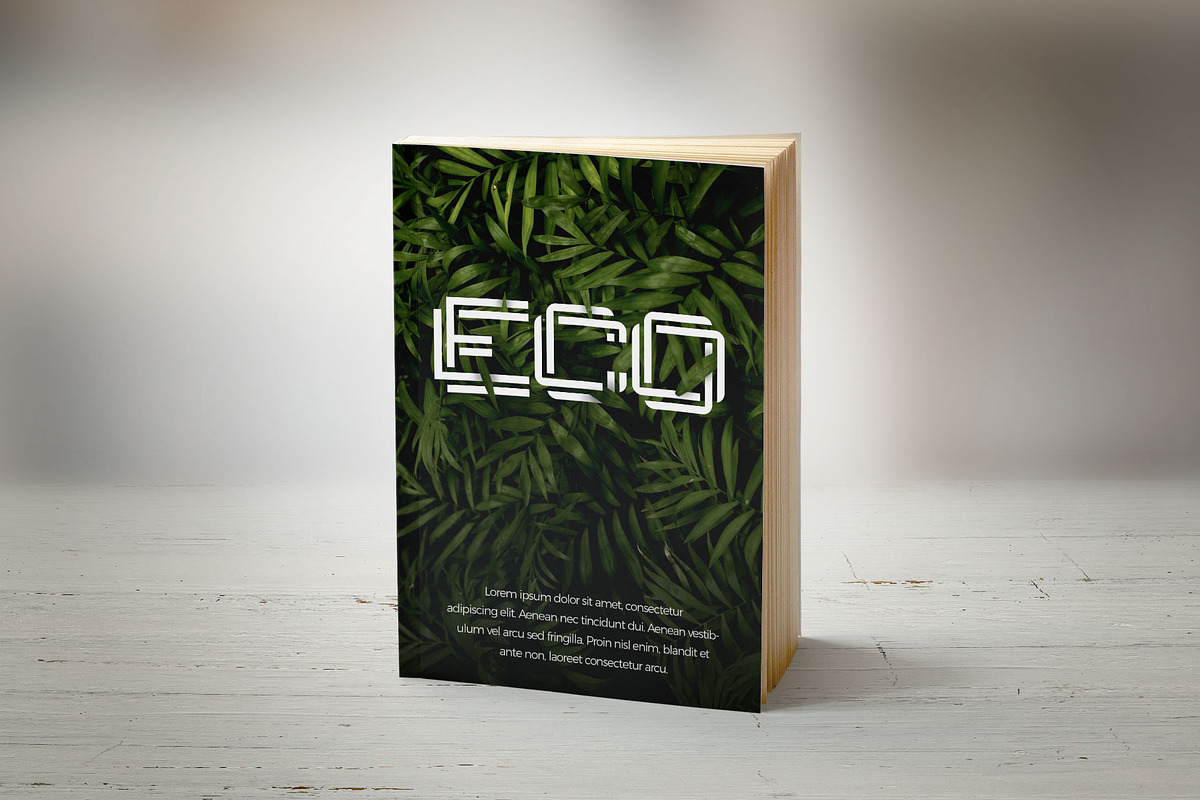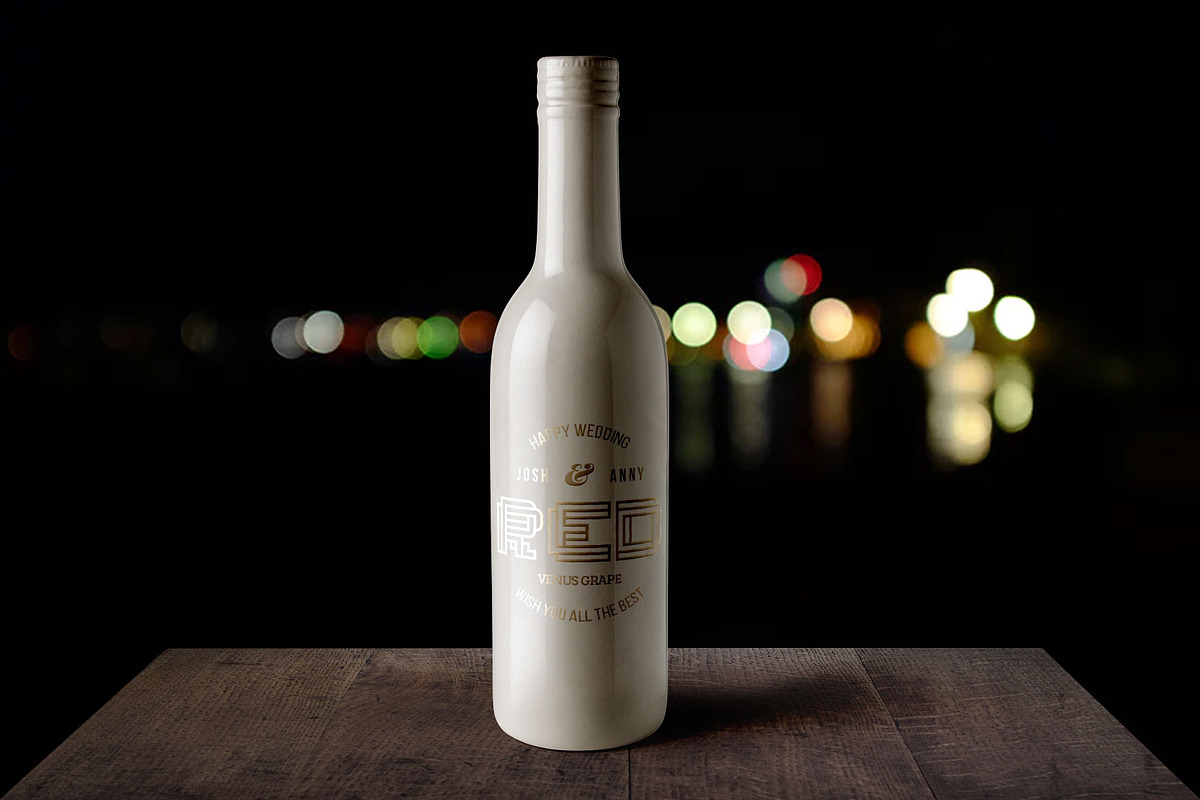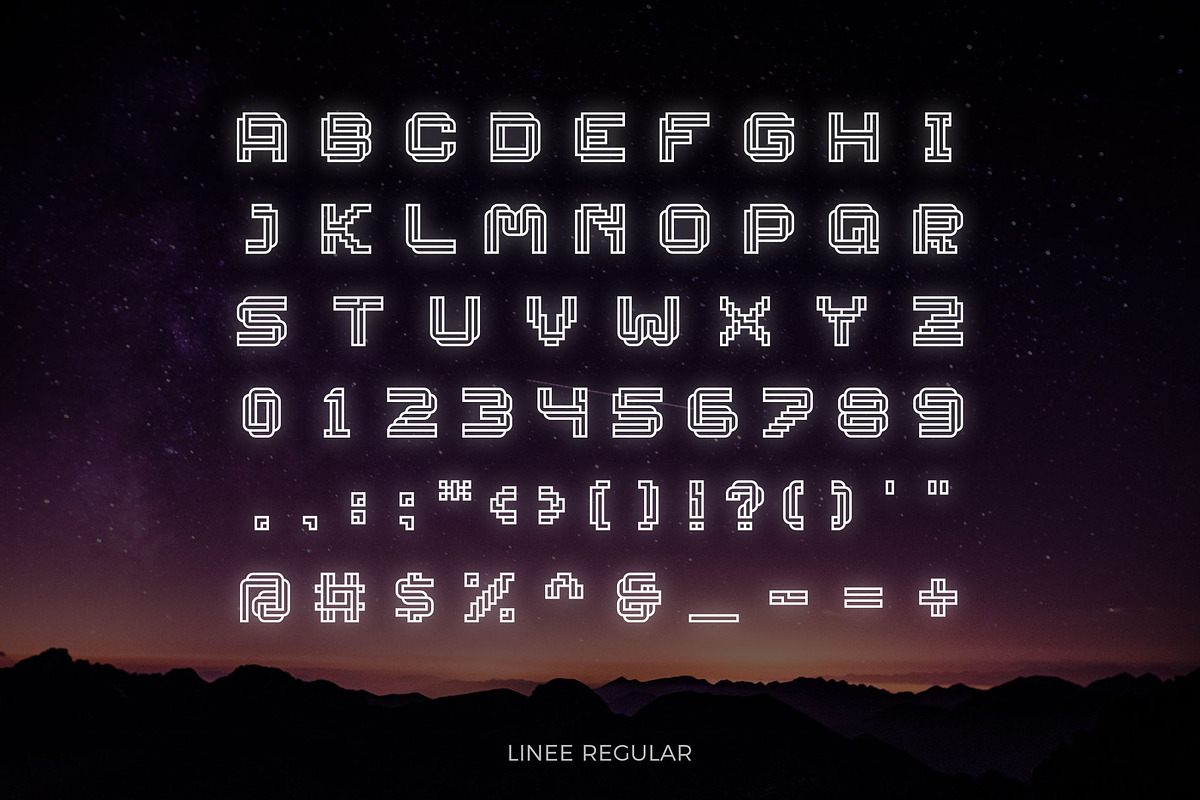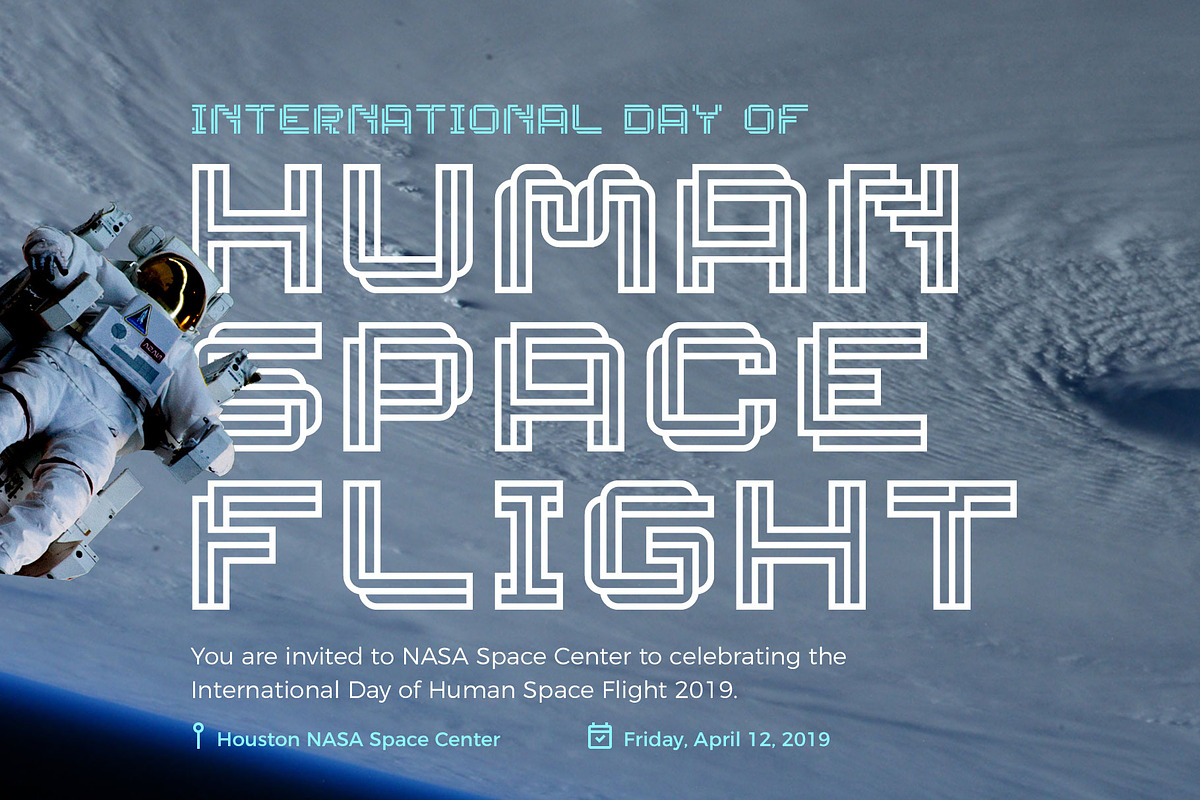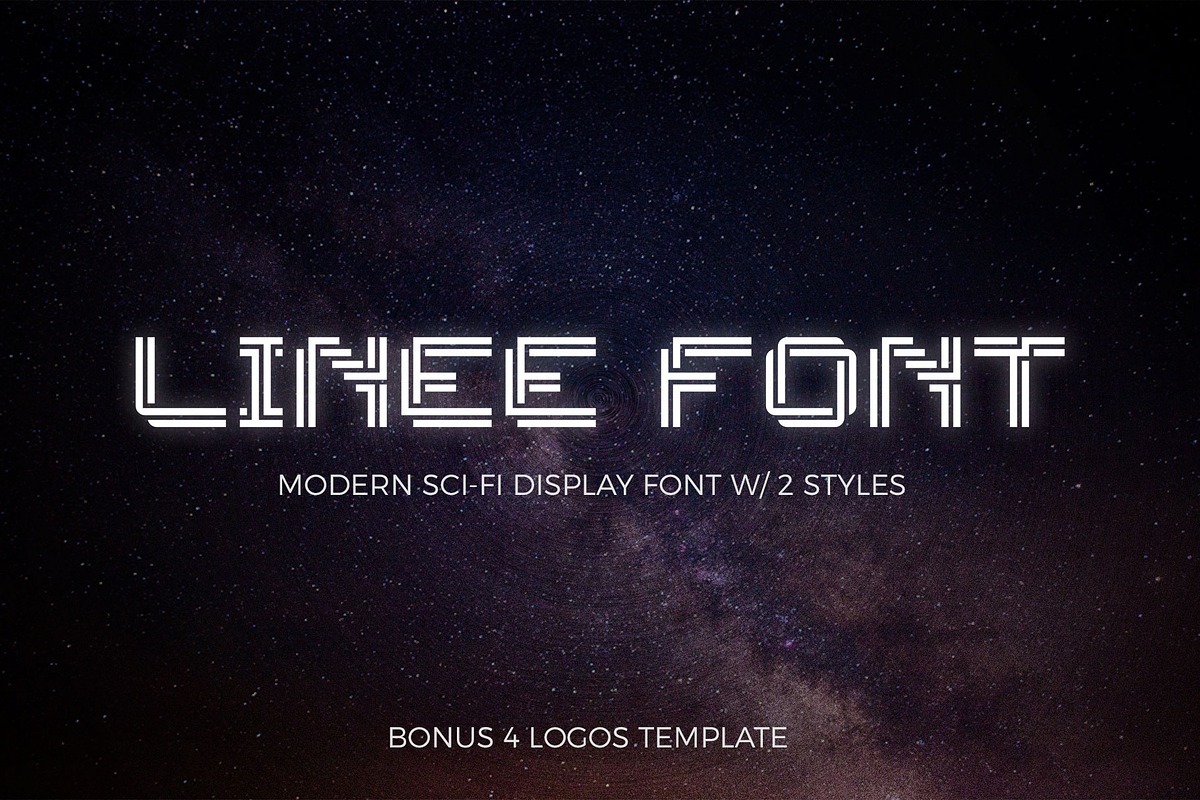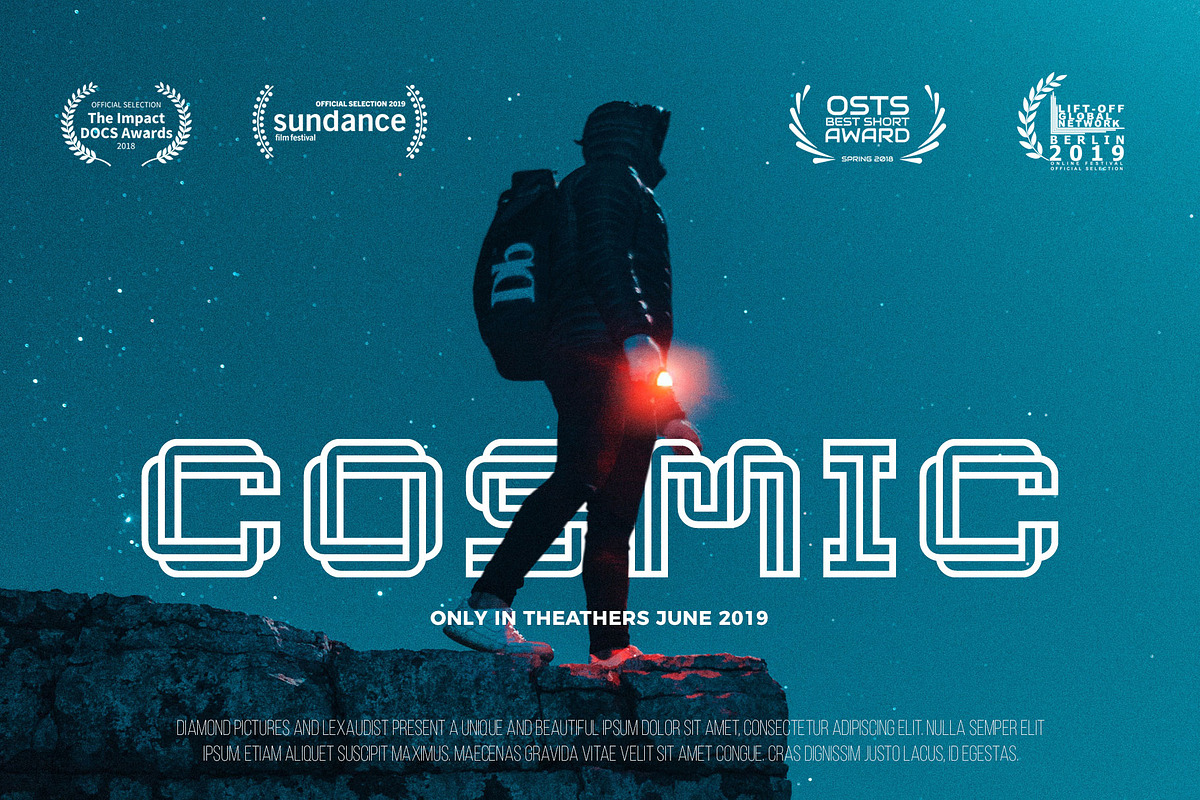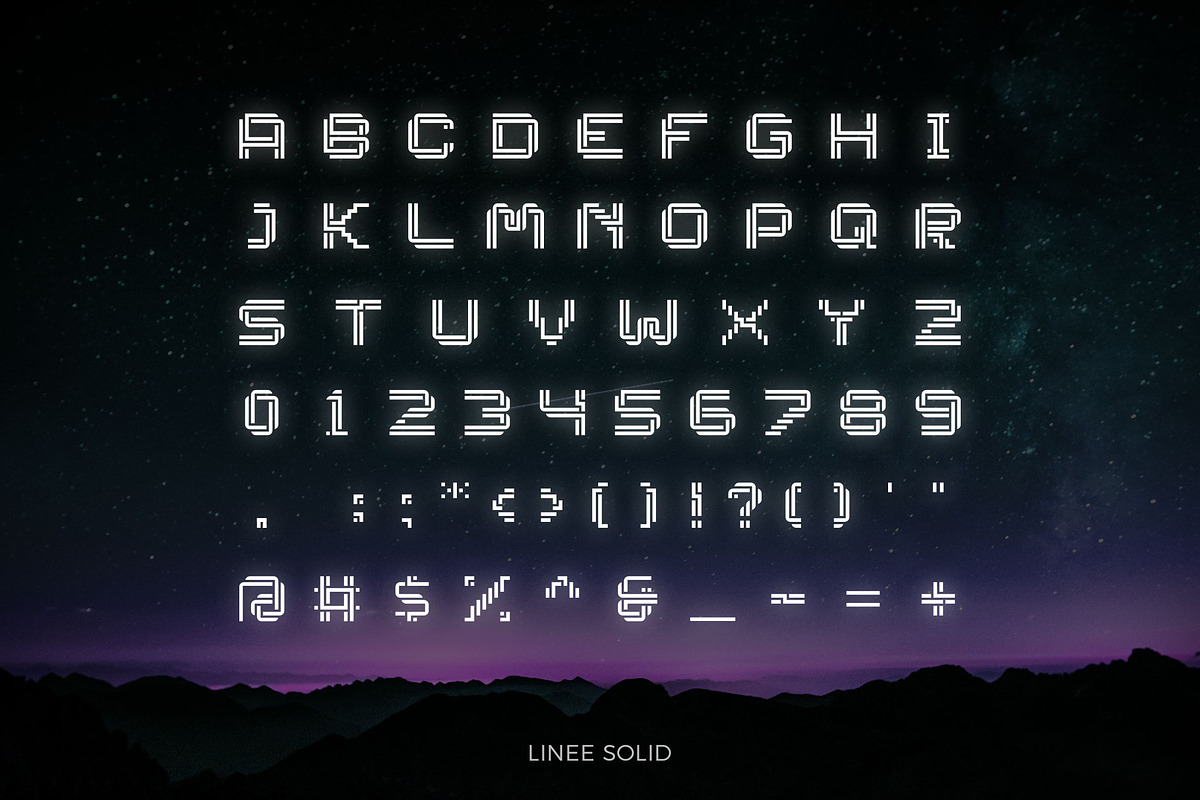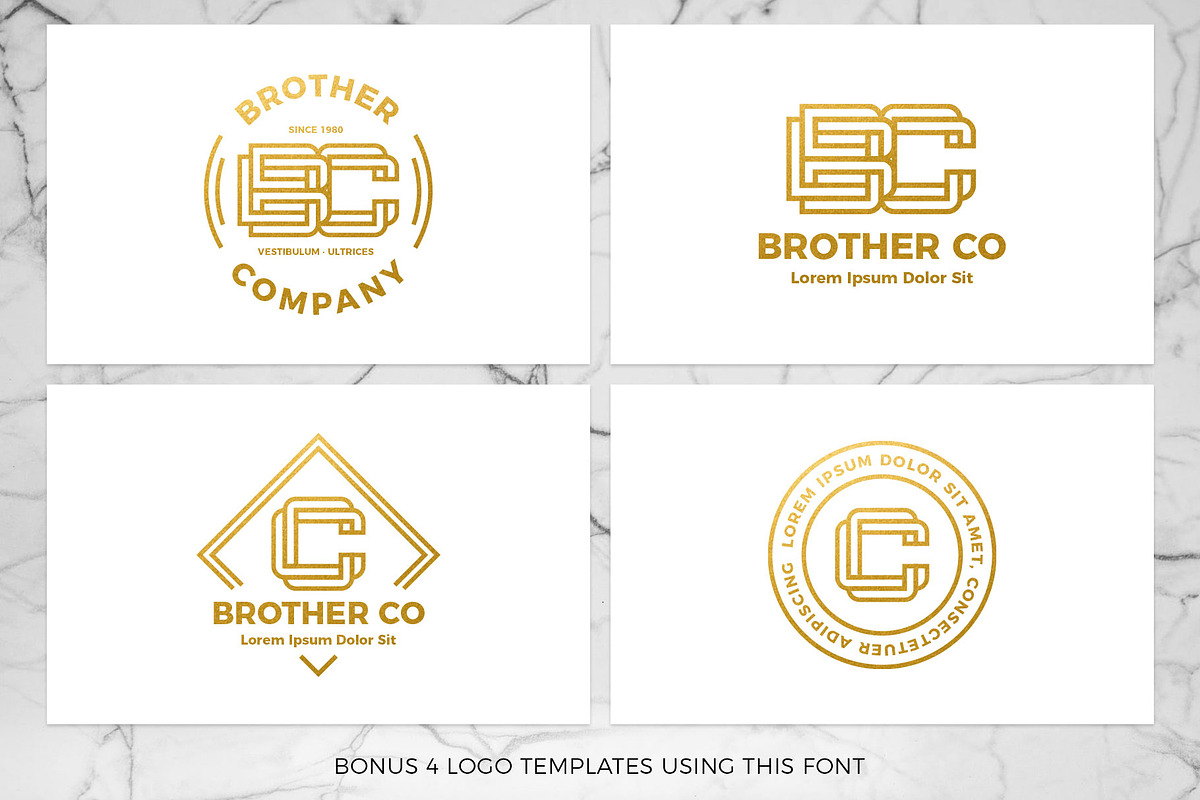
Linee Font - Scifi & Modern Look
Proudly introducing the new font : LINEE. This font comes in 2 styles which are Regular and Solid. You can see on the previews above.
Line Font will be perfect for many different projects such as logos & branding, invitation, poster, flyer, wedding designs, social media posts, advertisements, product packaging, product designs, label, photography, watermark, special events or movie poster title just like what I did on the preview above.
Linee Font - Scifi & Modern Look by Typoerba fits naturally into Branding, posters, packaging, typography.